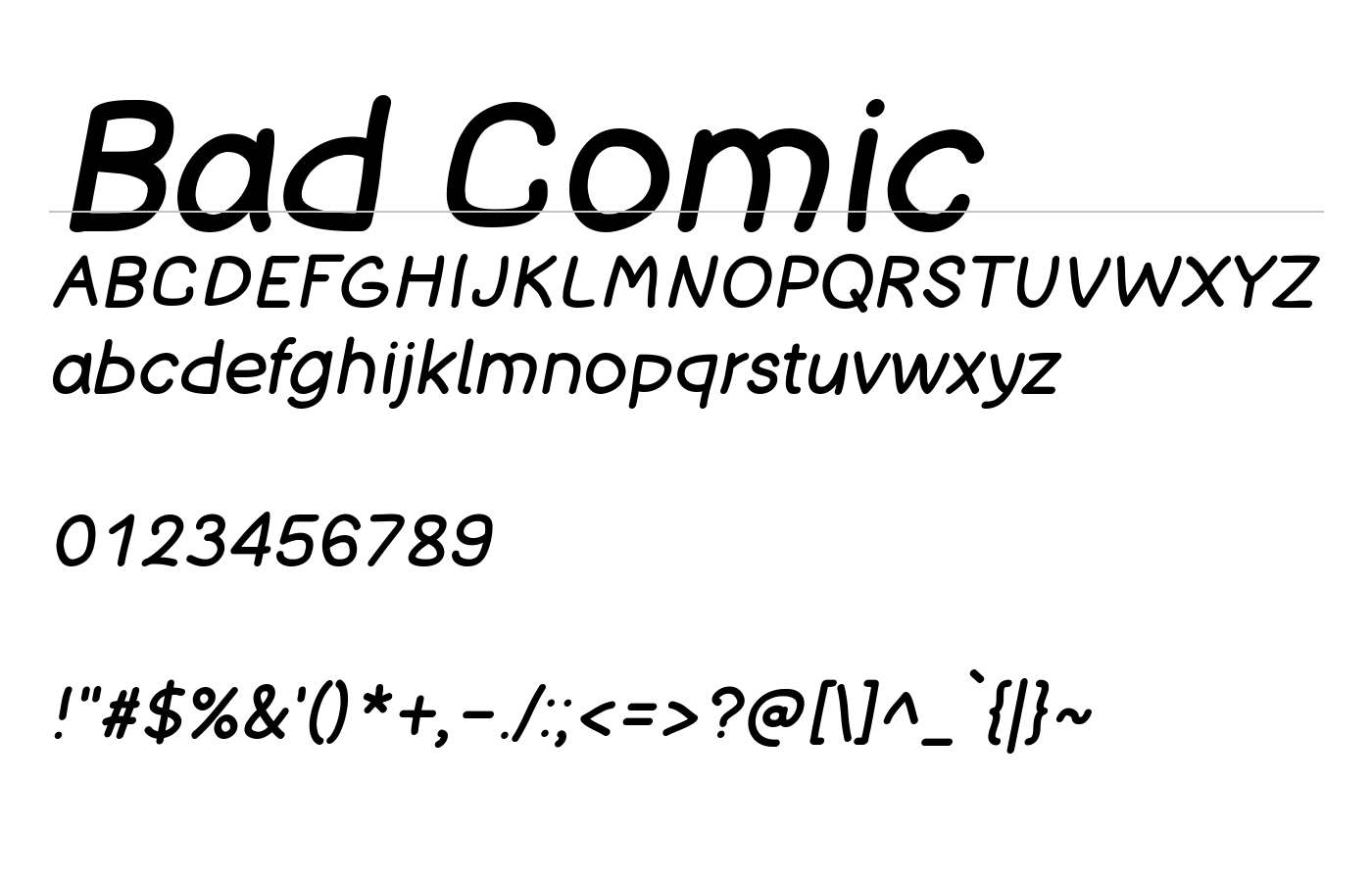
Bad Comic Font is a casual, playful sans serif with a hand-drawn feel, featuring slightly irregular shapes and moderate stroke contrast. Its relaxed, slightly slanted letterforms make it perfect for fun, informal designs like comics, children's books, and lighthearted branding. This font works well where a friendly, energetic vibe is desired without sacrificing readability.
Bad Comic Font
About Bad Comic Font
| Font family | Bad Comic Font |
| Languages supported | Latin, Cyrillic, Greek, Katakana |
| Designer | GGBotNet |